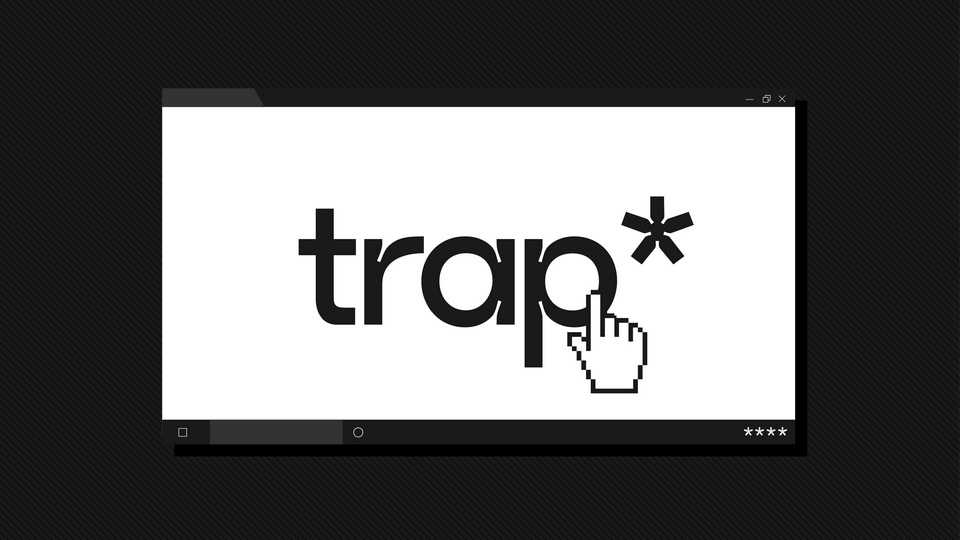
Download Trap typeface, a contemporary sans serif font family in 7 weights designed to be used in all sizes. The deep inktraps help with legibility at lower sizes while also making it elegant at display sizes.
Designer: Aayush Mayank